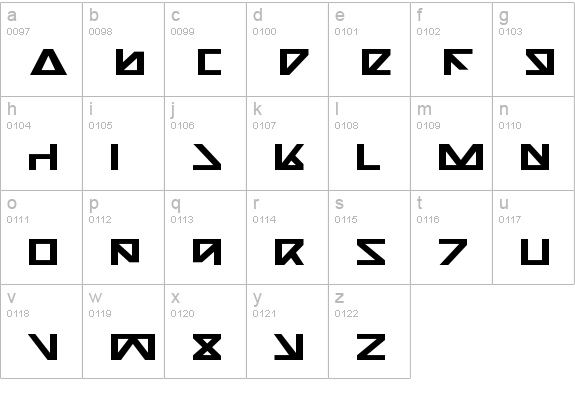
Nick Turbo Bold Expanded Font Details
Nick Turbo Bold Expanded is a strong, high-contrast, extended-width variant in the Nick typeface family \xE2\x80\x94 well suited to headlines, attention-grabbing titles, and strong calls-to-action.
Nick Turbo Bold Expanded font is a striking and dynamic typeface that exudes power and energy. Its bold and expanded design makes it perfect for creating eye-catching headlines, posters, and logos that demand attention. The strong, angular letterforms give the font a modern and edgy feel, while still maintaining a sense of professionalism and sophistication. What sets Nick Turbo Bold Expanded font apart is that it is not only visually impactful, but also versatile and easy to read. Whether used in print or digital designs, this font is sure to make a bold statement and leave a lasting impression on your audience. Best of all, Nick Turbo Bold Expanded font is available for free download at FontsMarket.com. This means that you can start using this powerful typeface in your projects right away, without any cost or hassle. Don't miss out on the opportunity to add this unique and impactful font to your design toolkit today!